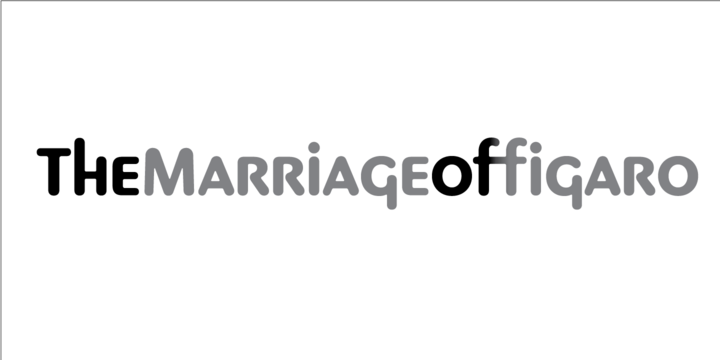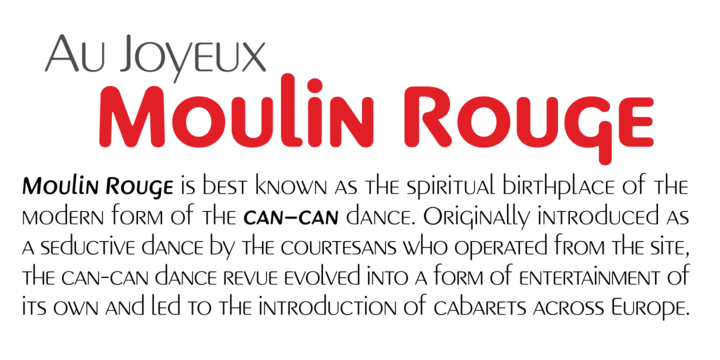
Pinot Grigio Modern Family Font
About the Pinot Grigio Modern Family Font
The Pinot Grigio Modern Family Font offers a perfect balance of form and function for your design needs. A modern update of the unique sans display font Peignot originally designed in 1937 by A. M. Cassandre. The font has been modernised by making all the terminals soft and making a larger x height and lessening the contrast between thick and thin.
Pinot Grigio excels in headline applications, branding projects requiring a touch of modern elegance, and short-form text on posters or packaging. Its slightly softened geometry prevents it from being overly aggressive, making it suitable for conveying sophistication without coldness. However, the design isn’t ideal for body text or UI elements due to its relatively large x-height and limited character set variations.
Pairing Pinot Grigio with a classic serif like Garamond for body copy creates a balanced and timeless feel. For a more contemporary look, consider pairing it with a geometric sans-serif such as Futura or a clean, neutral sans-serif like Lato. A playful script font could add a touch of personality to logos or special event announcements when used sparingly.
The overall personality is sophisticated yet approachable; modern but not overly trendy. It suggests a brand that values both quality and accessibility.